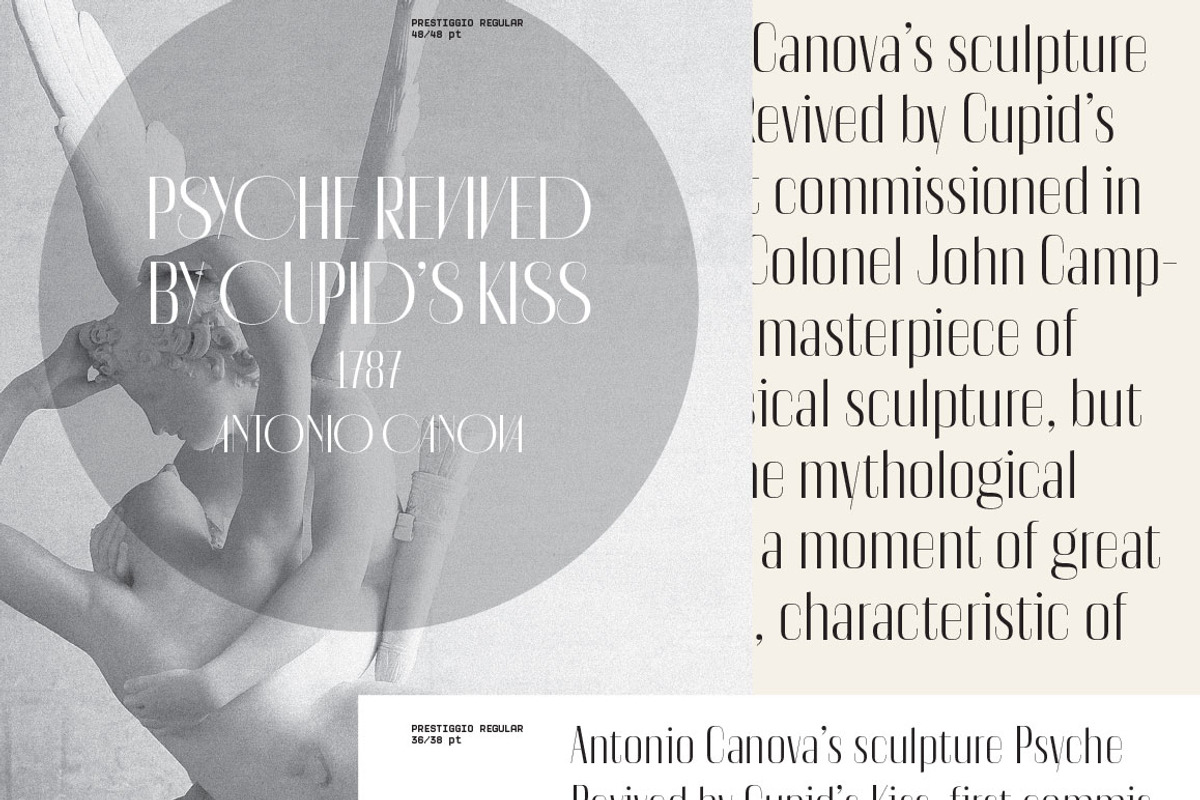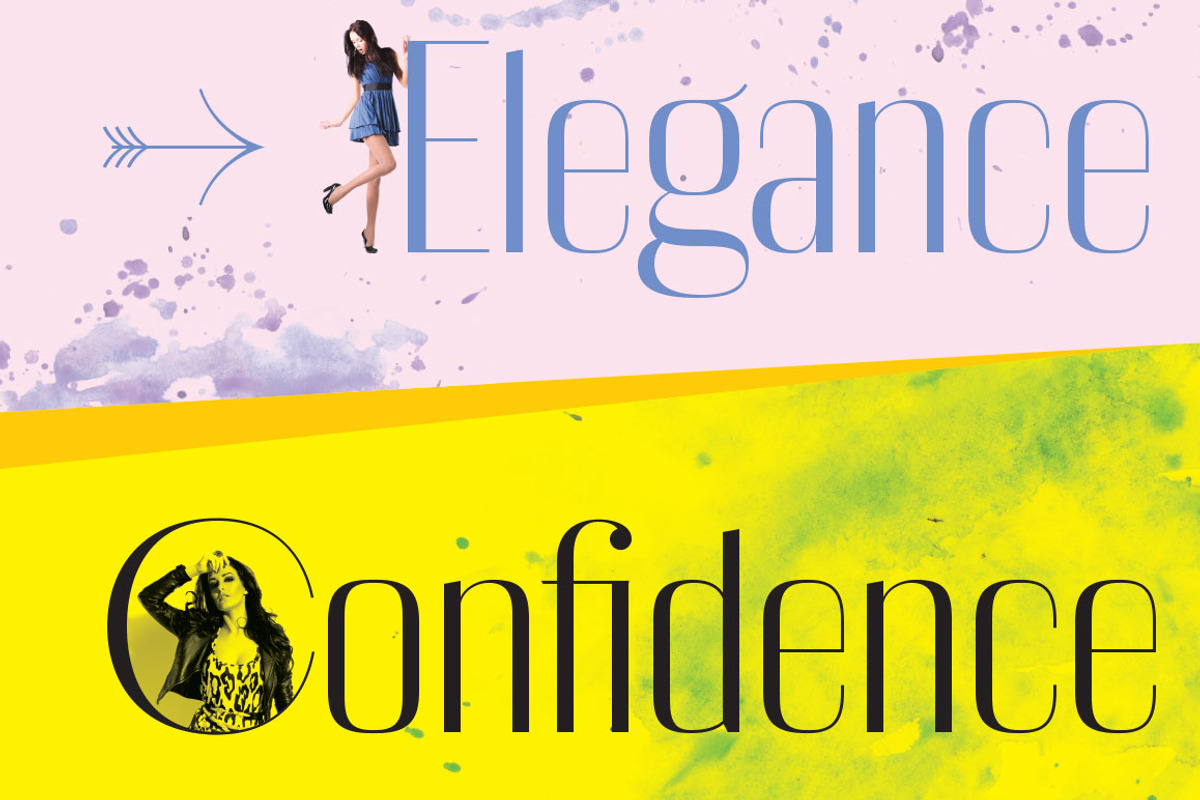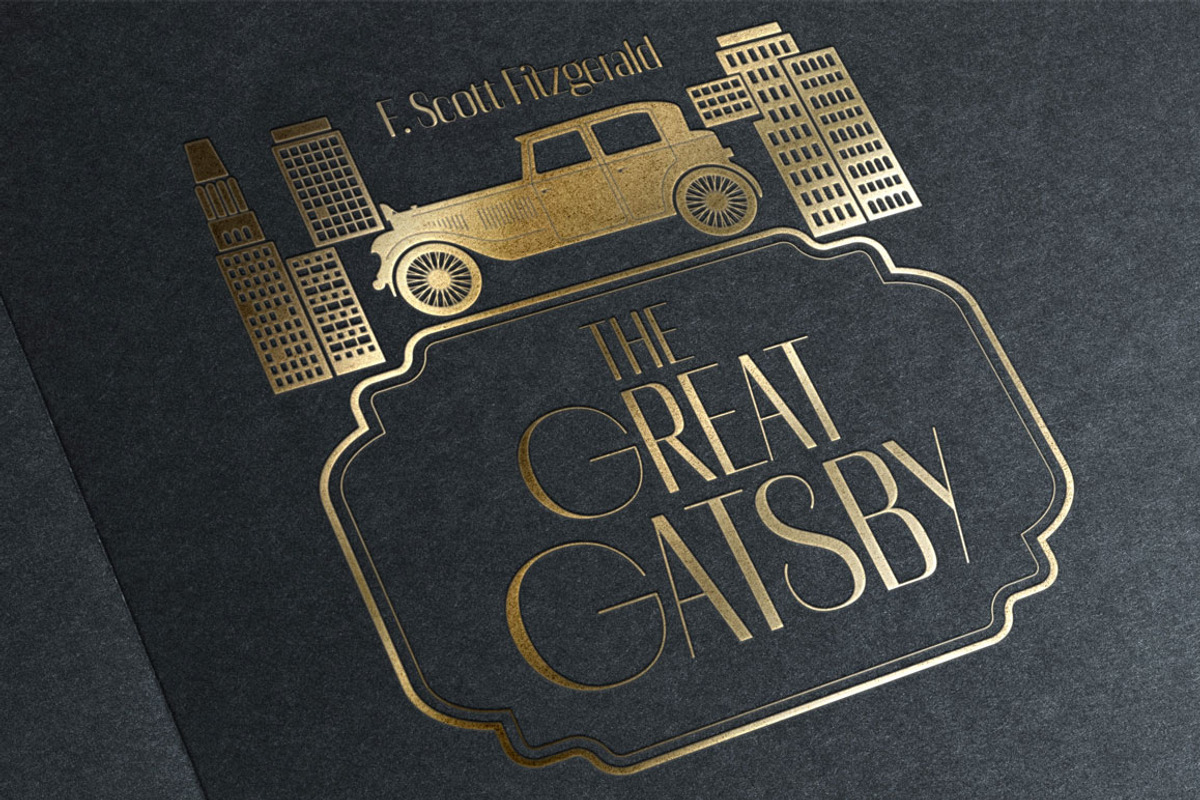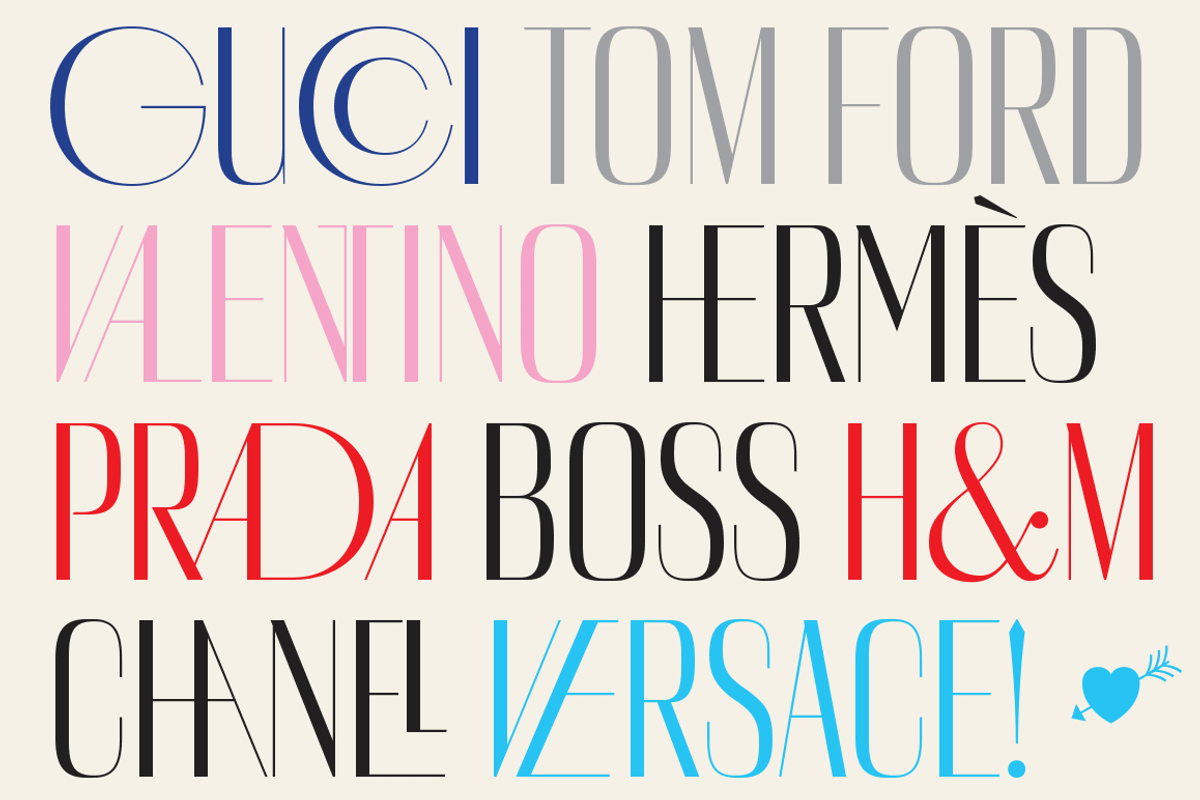
Prestiggio Elegant Fashion Font
Prestiggio Elegant Fashion Font by REKORD is a font selected for branding, posters, packaging, typography.
- With the very high contrast, graceful proportions, many alternate glyphs and ligature overload, Prestiggio is an instant fashionizer.
- Prestiggio's 95 discretionary ligatures (uppercase and lowercase), alternate characters and old-style figures invite to play while you work.
- The characters can be replaced automagically with the stylistic sets function, but you will get the best results using the glyphs palette.
- Craft your unique look with alternate characters and playful ligatures — from elegantly reserved style of Grace Kelly to crazy pop sexiness
Why Prestiggio Elegant Fashion Font is worth a look
Prestiggio Elegant Fashion Font by REKORD fits naturally into Branding, posters, packaging, typography.